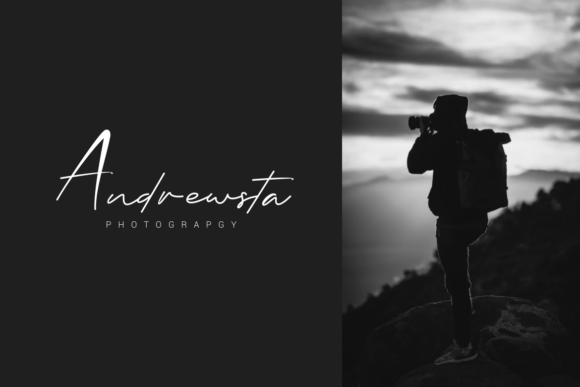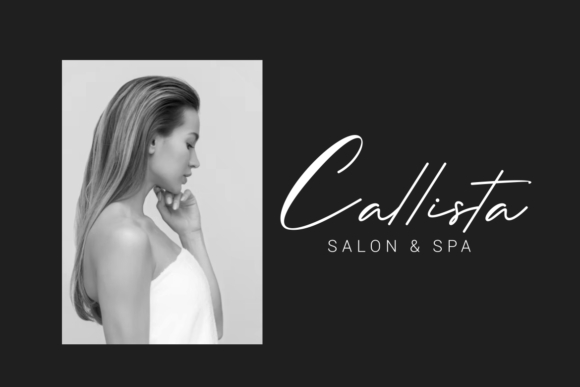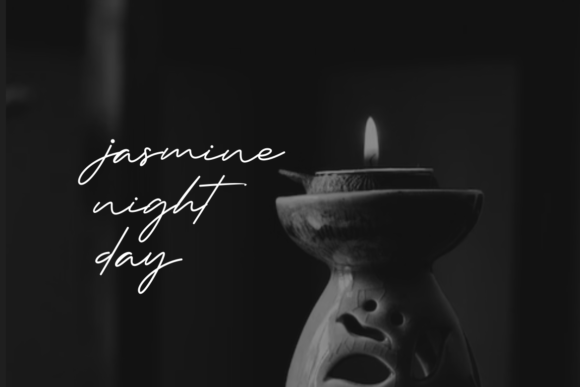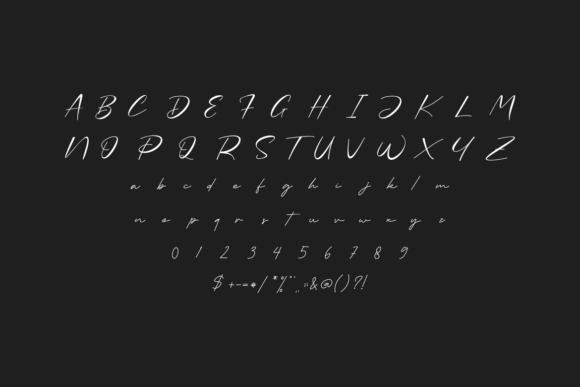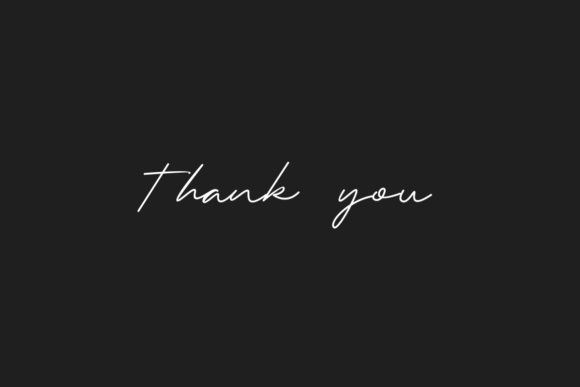
Introduction to Sintadia Font
Have you ever found yourself stuck in the middle of a creative project, desperately searching for the perfect font to elevate your design? You scroll through countless options, but none seem to capture the essence of your vision. That’s where the Sintadia Font comes in – a charming and authentic script font that’s sure to breathe new life into your project.
Whether you’re working on a logo, t-shirt printing, or an esports branding project, the Sintadia Font is an exceptional design resource that will take your creative endeavors to the next level. With its high-quality design and versatility, this font is perfect for designers who want to add a personal touch to their work. And the best part? It’s available for free download, complete with a transparent background, making it easy to integrate into any design project.
Key Features of Sintadia Font
- Unique, modern font style with a transparent background, perfect for various design applications.
- Perfect for use in graphic design, web design, and digital art projects, where a modern and sleek font is required.
Honest Review: Sintadia Font
I recently had the opportunity to work with the Sintadia Font, and I must say it’s been a game-changer for my creative projects. The high quality of this design resource has exceeded my expectations.
- ✨ High-quality design: The Sintadia Font boasts beautiful typography, perfect for any creative project.
- ✨ Transparent background: This feature has allowed me to easily integrate the font into my designs without any issues.
- ⚠️ Limited font styles: While the Sintadia Font is available in a few styles, I would have loved to see more options to choose from.
Overall, I’m impressed with the Sintadia Font and would highly recommend it to fellow designers. Its high quality and versatility make it a valuable addition to any design resource library.
Getting the Most Out of Sintadia Font
To get the most out of Sintadia Font, use it in your creative projects where a high-quality, unique font is required. The font’s transparent background makes it perfect for use in designs with complex backgrounds. You can also use it in combination with other design resources to create a cohesive look.
The Sintadia Font is commonly used in branding, marketing materials, and digital designs. Its unique design makes it perfect for use in logos, business cards, and other marketing materials. It can also be used in digital designs such as websites, social media graphics, and mobile apps.